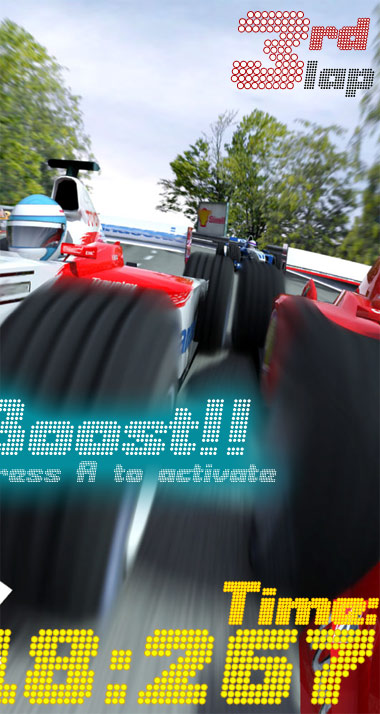
FS Pole Position u/c
by kix
inspired by oldschool video racing games, but also by lapcounters in formula one. Every dot of this's got a size of 5x5 bricks!!! the reason for choosing such a superhigh resolution, was the idea to create an italic angle, which is impossible to do with the FSapplet. This is followed by a LOWER case plus numbers, called "pole position l/c". however...cheers,community and fontlovers!
ok, this is finished for now.
Great job, it is a shame that does not download. I had the same problem with my first try on Stag Bold Dot.
This is superb. Phishing the envelope.
So, it's about time to publish the lower case + numerals :)
It's called "pole position l/c".
this is cool. nothing like getting to problematic fonts to download. i've had a few myself and i've wondered on occasion would it be necessary to modify the creative process to build the font set within workable dimensions. fortunately, our admins always seems to have a hat trick or two to help us along. this is one your unsung best. probably deserving a pink dot which seems to be harder to get these days :(
pink isn't my color anyway :P
lol! at least you were polite:) damn yr sample is killer dude. yr fonts really adds to the image and together conveys a most dynamic message. one of the best i've seen :)
Only caps? Not my style
this is an only uppercase set. if u want lower case, visit the lowercase set :D